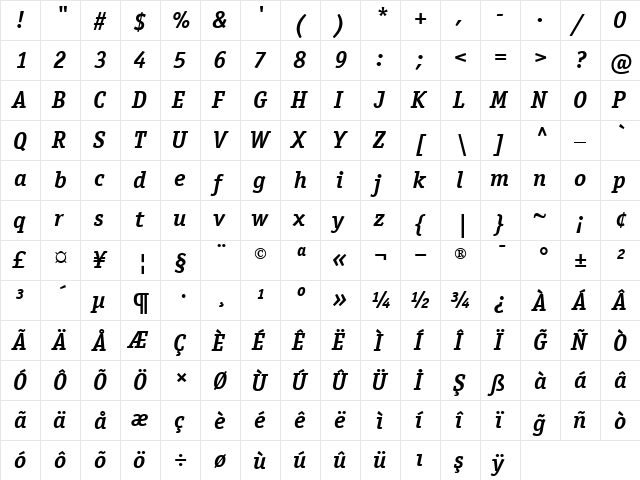
OfficinaSerifBoldItalic Regular Font Preview
Design Context for OfficinaSerifBoldItalic Typeface
OfficinaSerifBoldItalic carries the refined structure of traditional serif typography, with bracketed terminals and considered proportions that communicate credibility and craft. Its italic angle brings a sense of urgency and motion to the letterforms. Its bold stroke weight gives it real presence on the page.